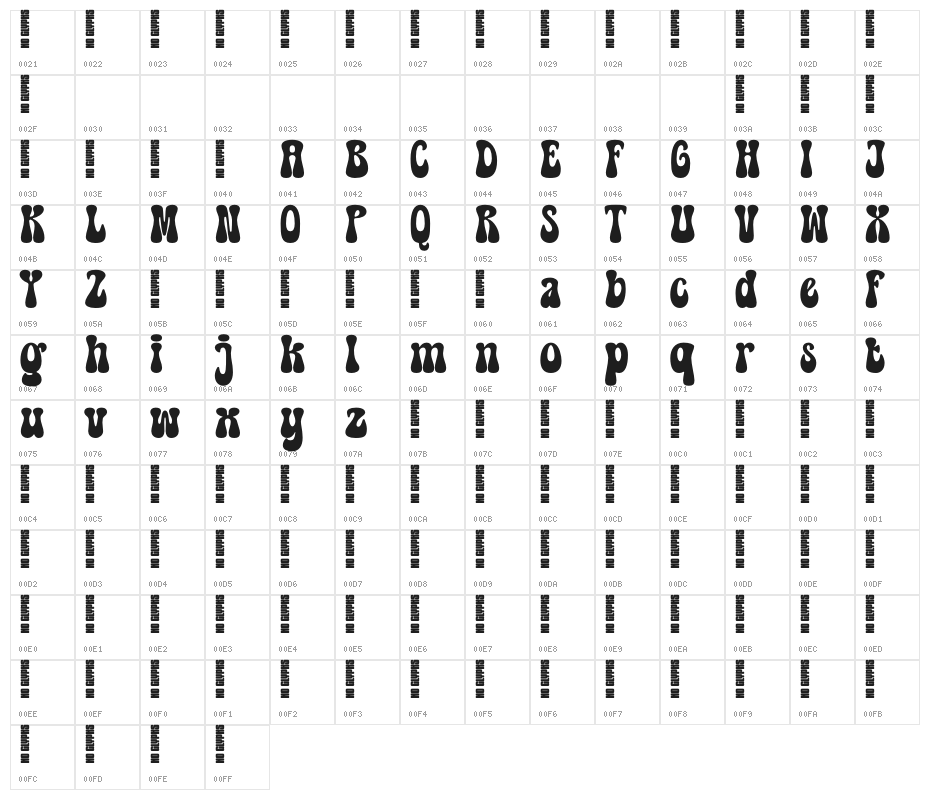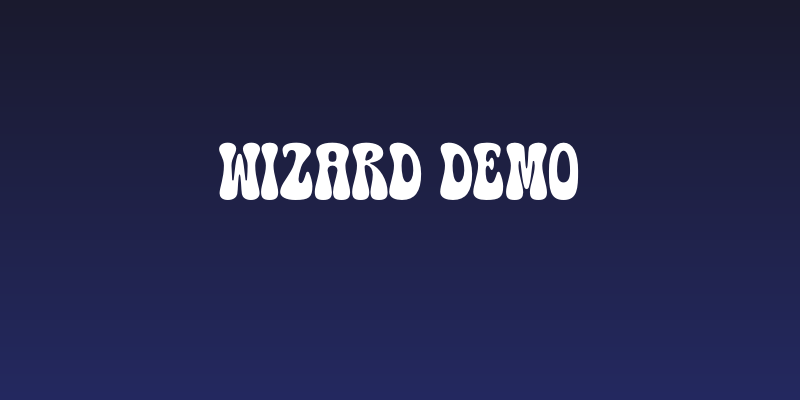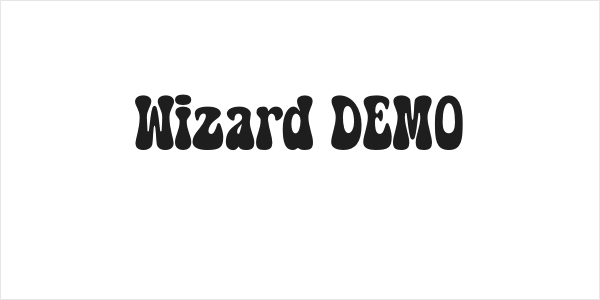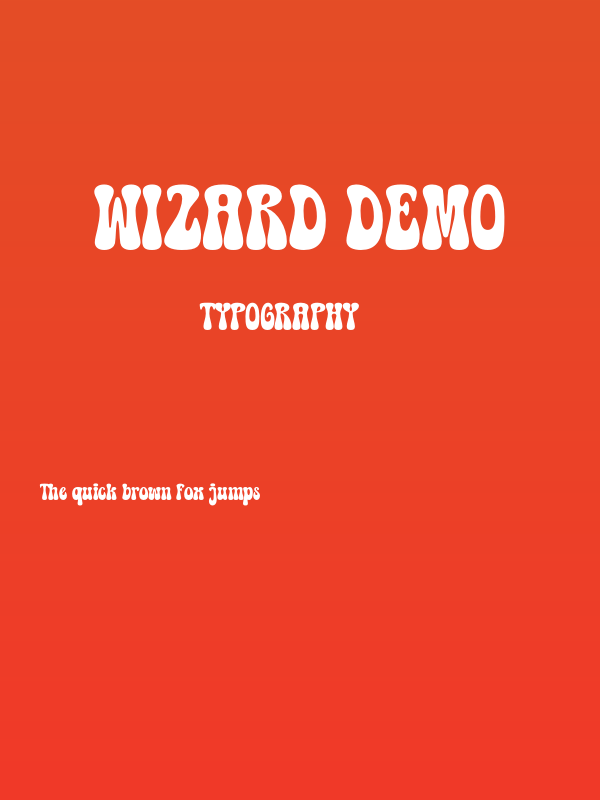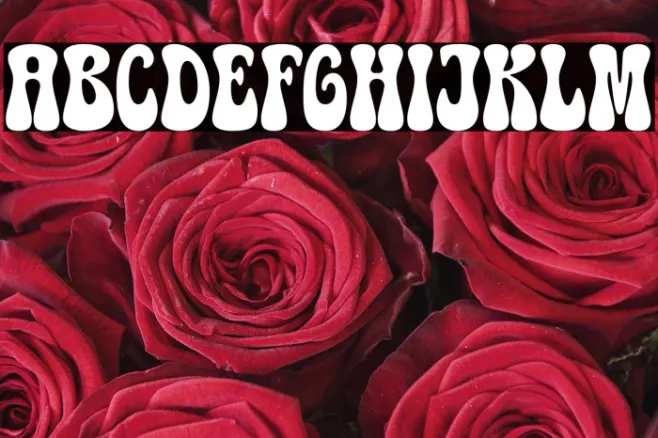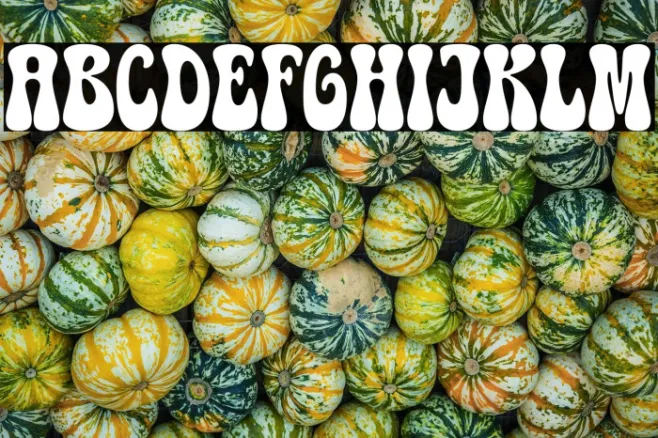
Wizard DEMO Font
Wizard DEMO Description
A bold, decorative font with a playful and wavy style, featuring thick strokes and unique character shapes.
| Overall Style | Retro, Playful |
| Proposed Projects | Posters, album covers, retro-themed designs. |